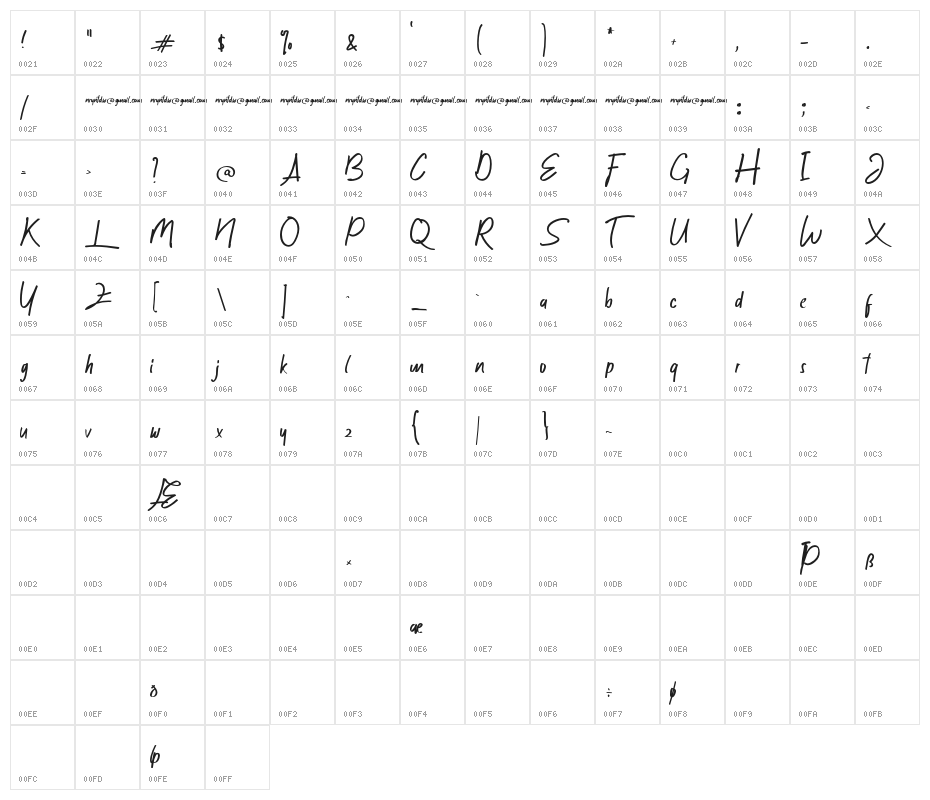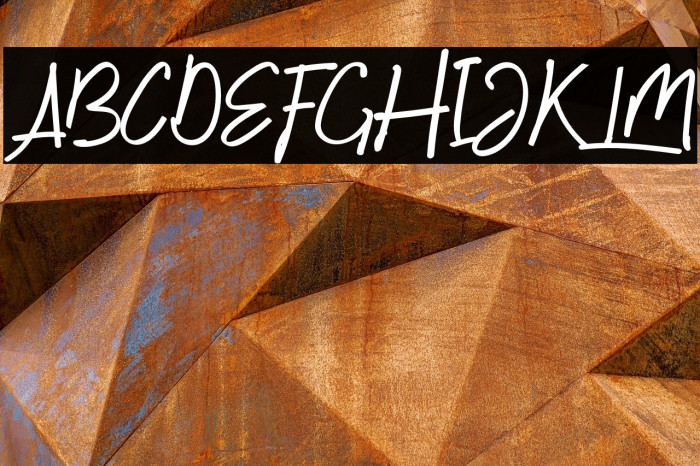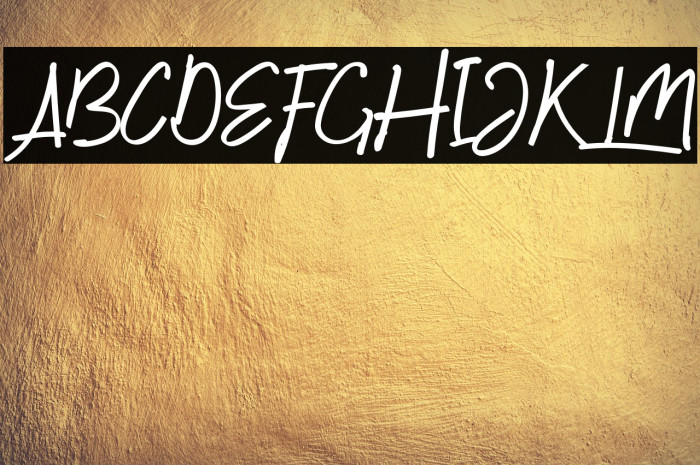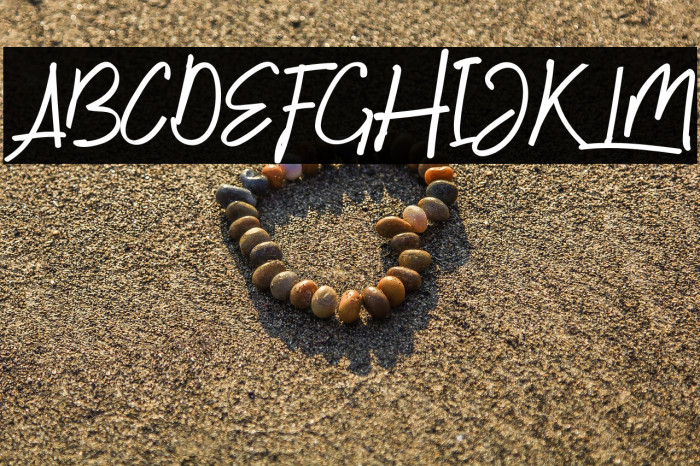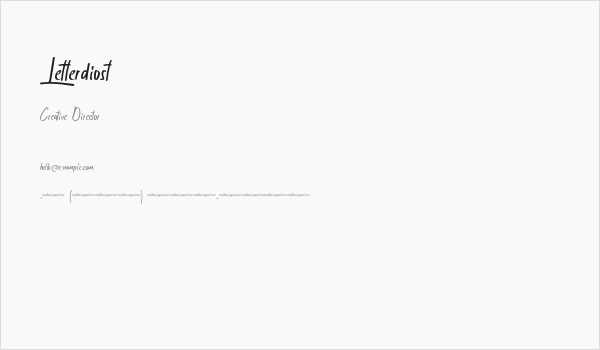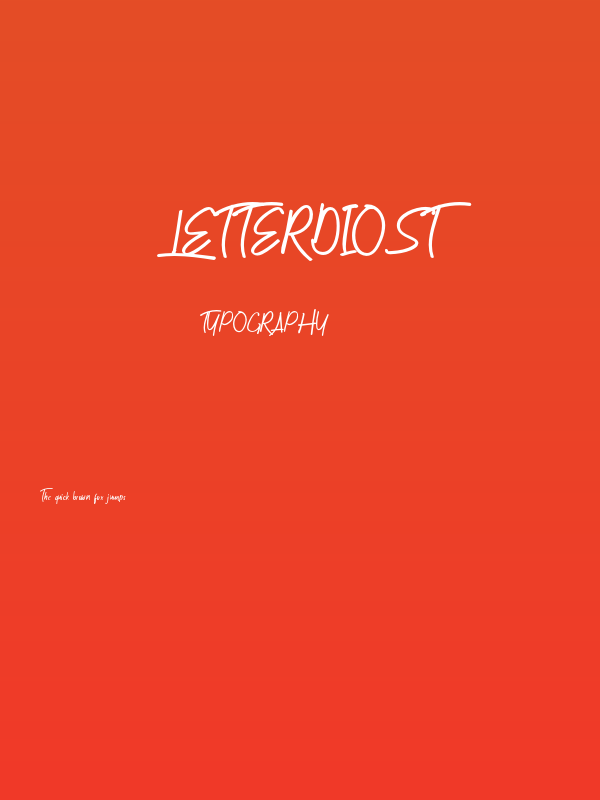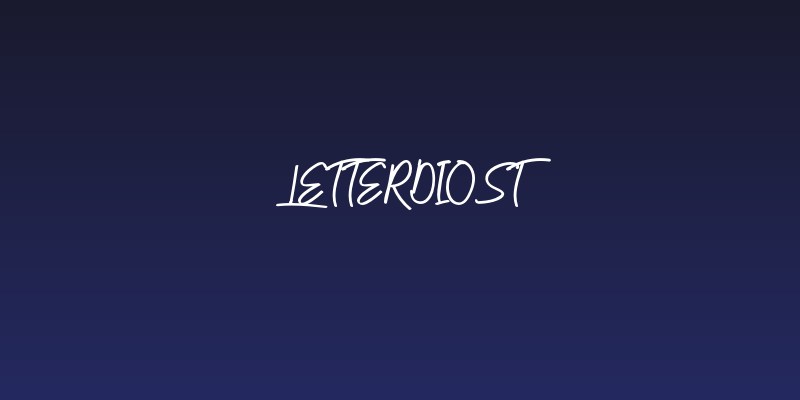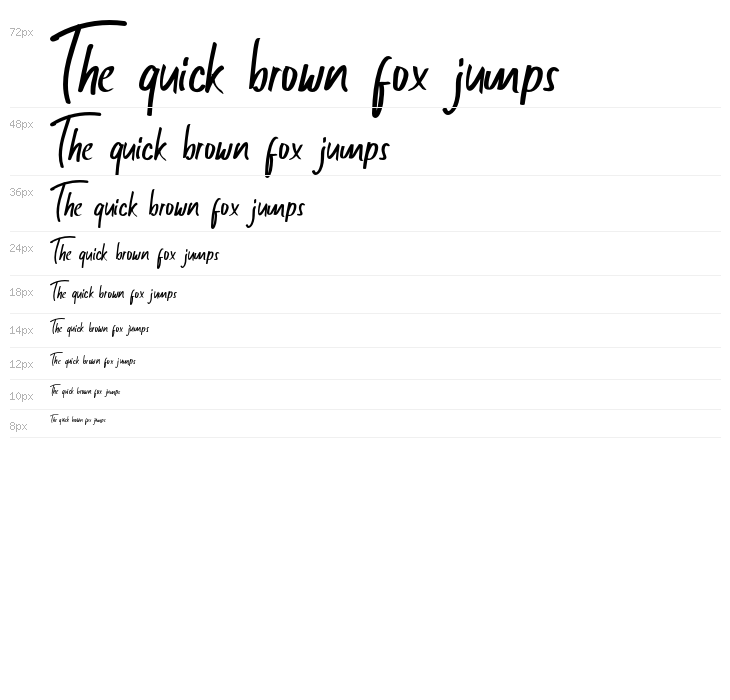
Letterdiost Font
Letterdiost Description
This font exhibits a dynamic and energetic handwritten style, characterized by its fluid strokes and slightly irregular letterforms. The uppercase letters are bold and expressive, with a noticeable slant that adds a sense of motion. The lowercase letters maintain a consistent flow, complementing the uppercase with their smooth curves and elongated forms. The numerals and special characters follow the same lively aesthetic, ensuring a cohesive look across all text elements. This font's playful yet sophisticated appearance makes it suitable for projects that require a personal touch or a creative flair.
| Use Case | Logos, Headlines, Creative projects |
| Proposed Projects | Ideal for branding, invitations, greeting cards, and creative projects that require a personal touch. |